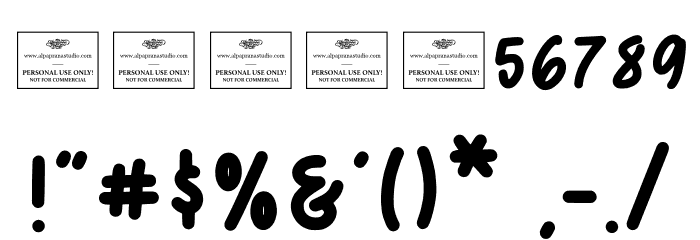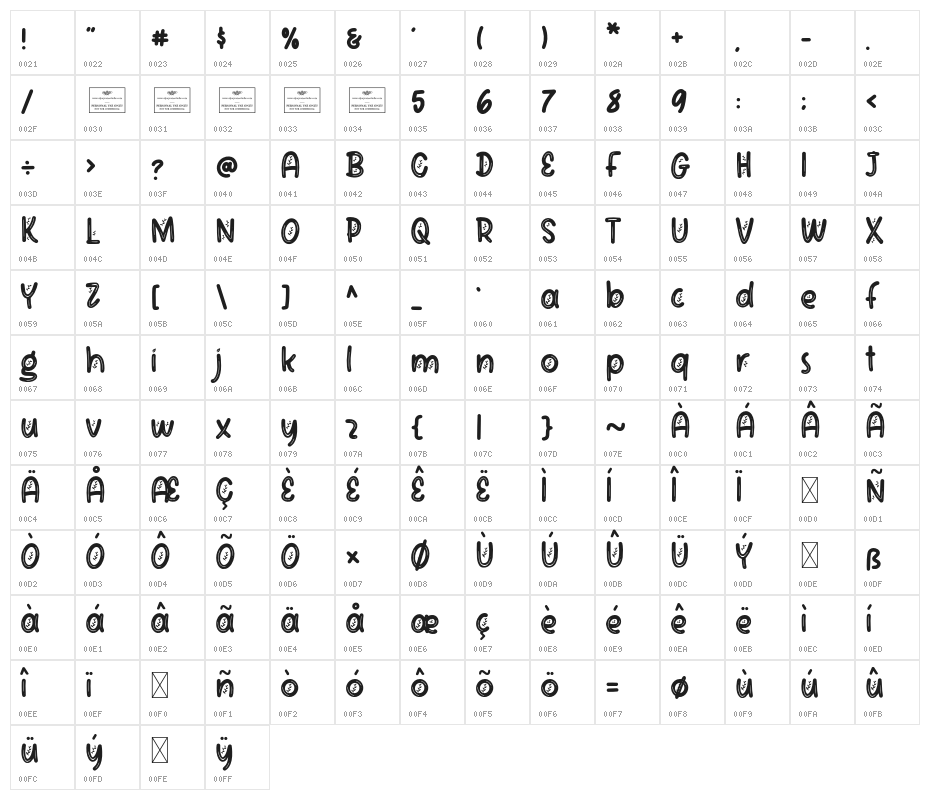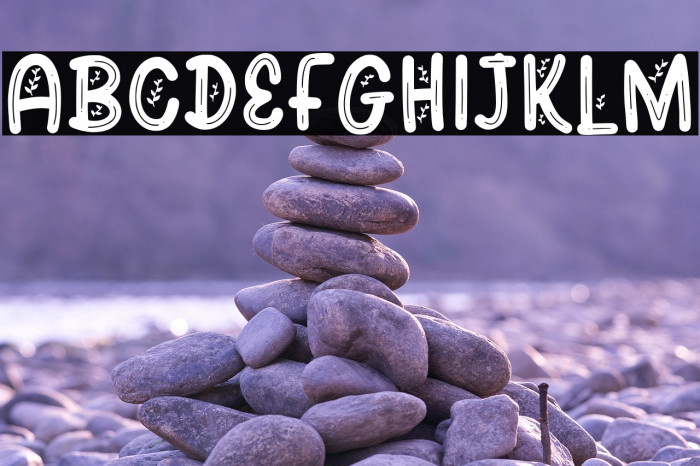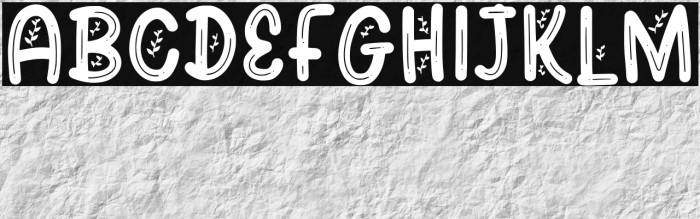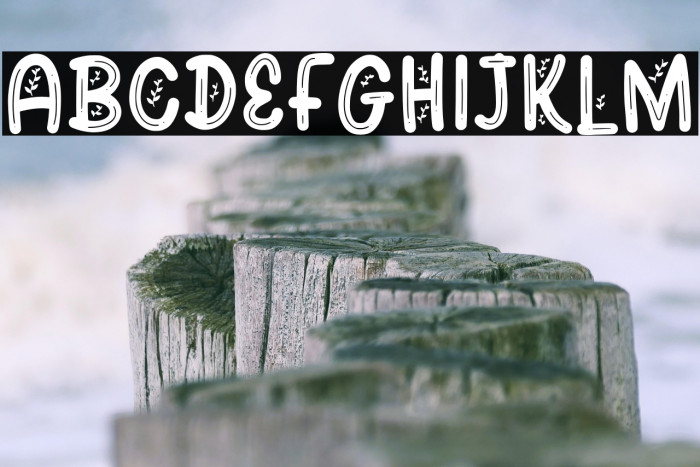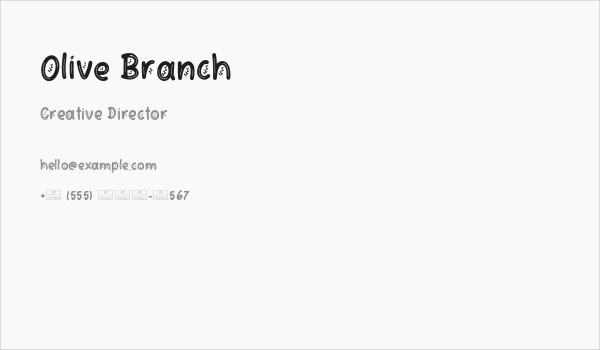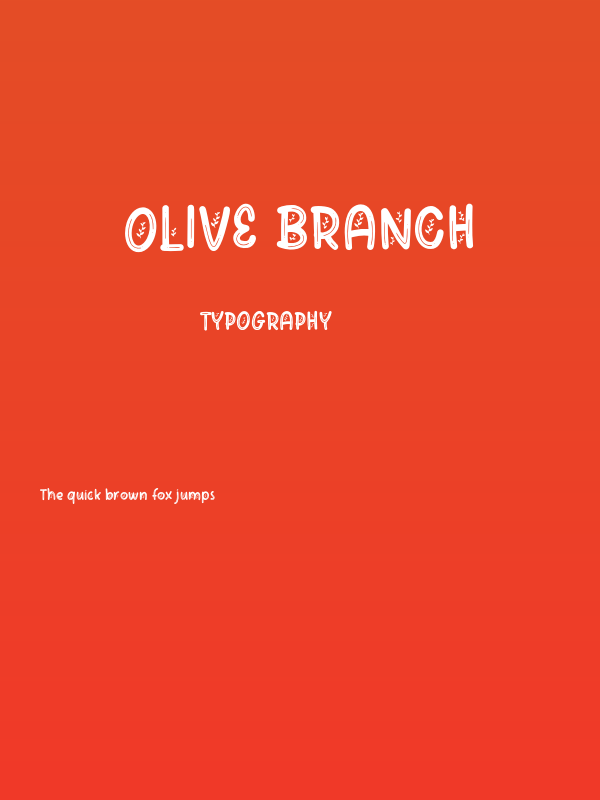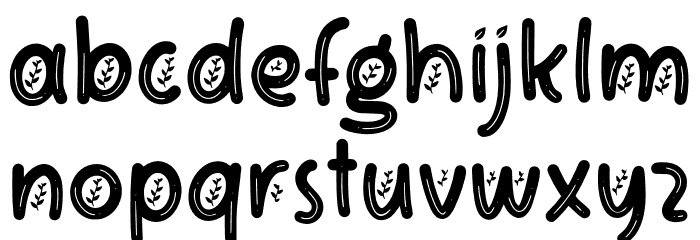
Olive Branch Font
Olive Branch Description
This playful and decorative font features bold, rounded characters with unique leaf-like embellishments inside each letter. The style is whimsical and artistic, making it stand out with its creative flair. The uppercase and lowercase letters maintain a consistent design, while numbers and special characters follow the same theme, ensuring a cohesive look. The font's distinct personality is perfect for projects that require a touch of nature-inspired creativity and fun.
| Proposed Projects | Ideal for children's book covers, eco-friendly brand logos, greeting cards, and playful event invitations. |